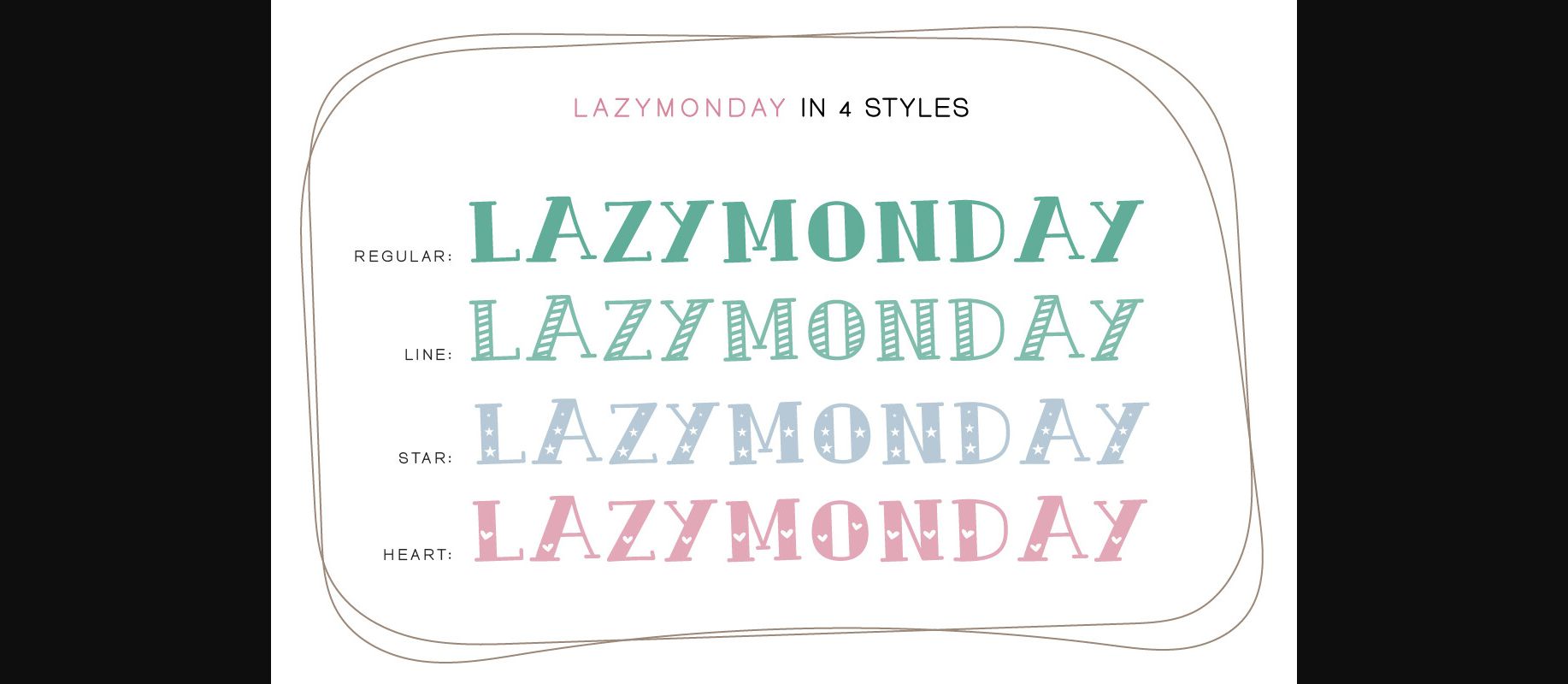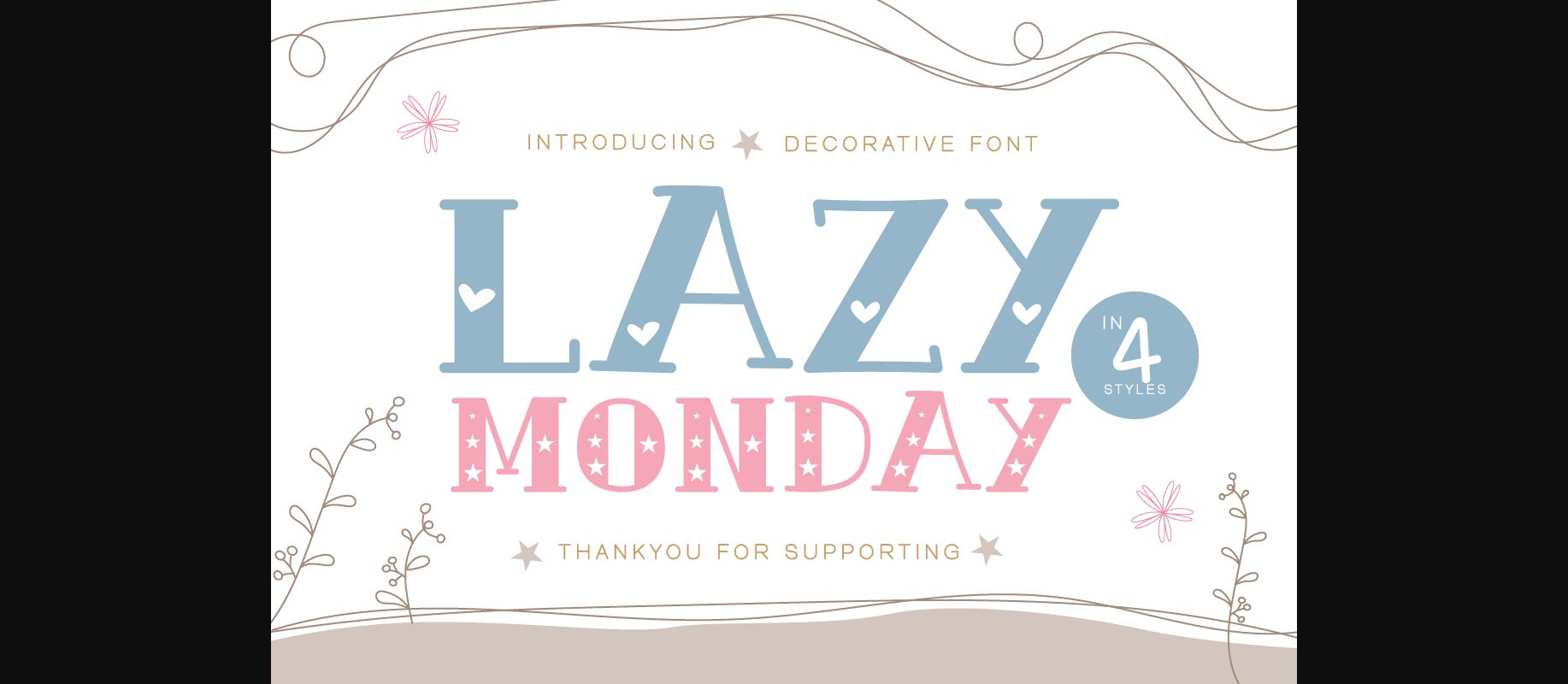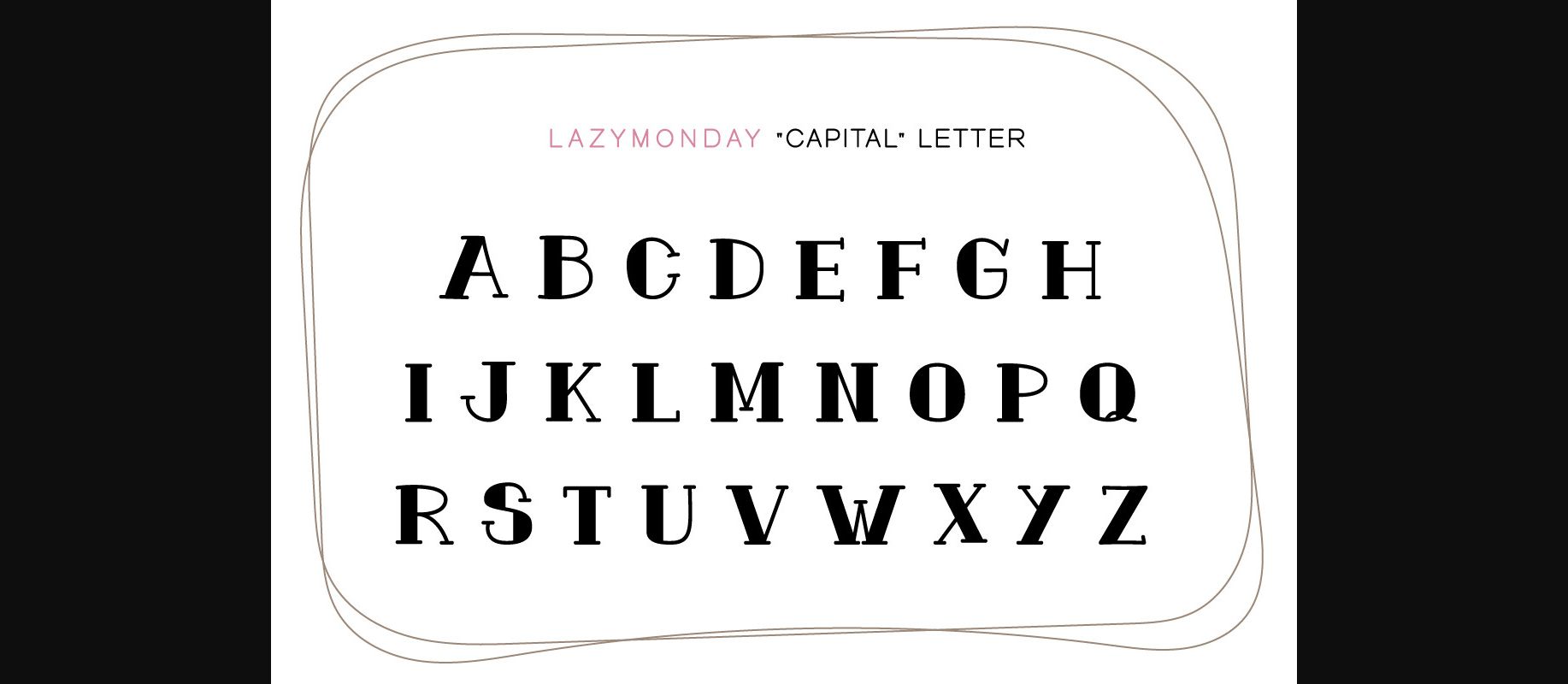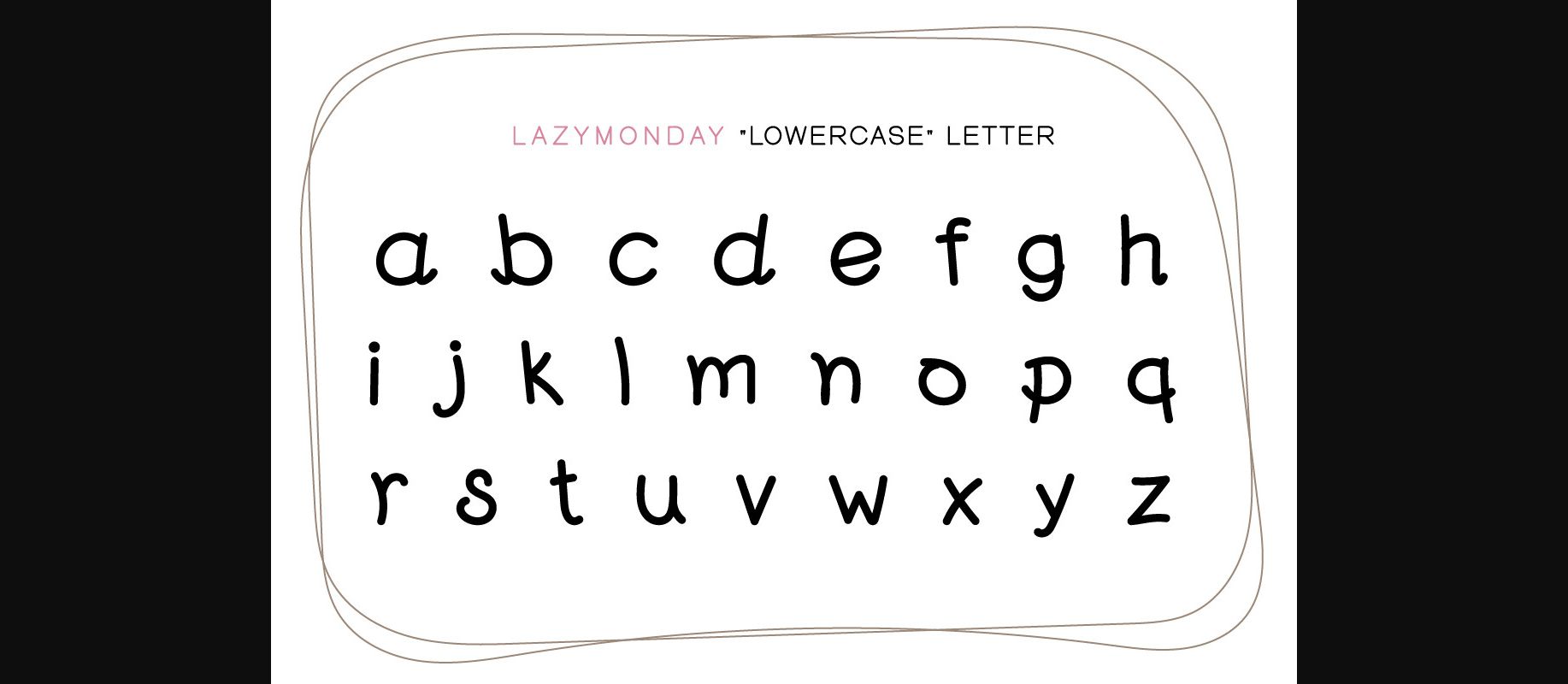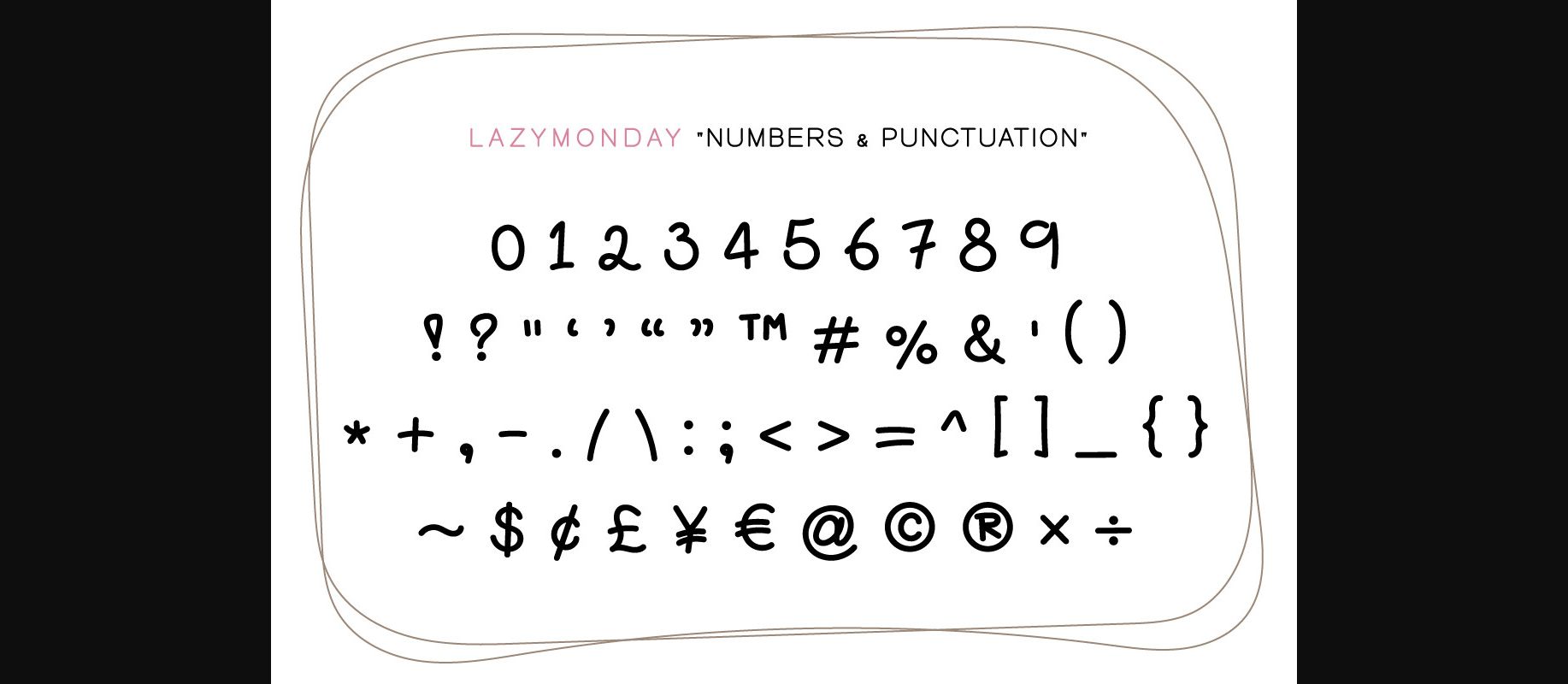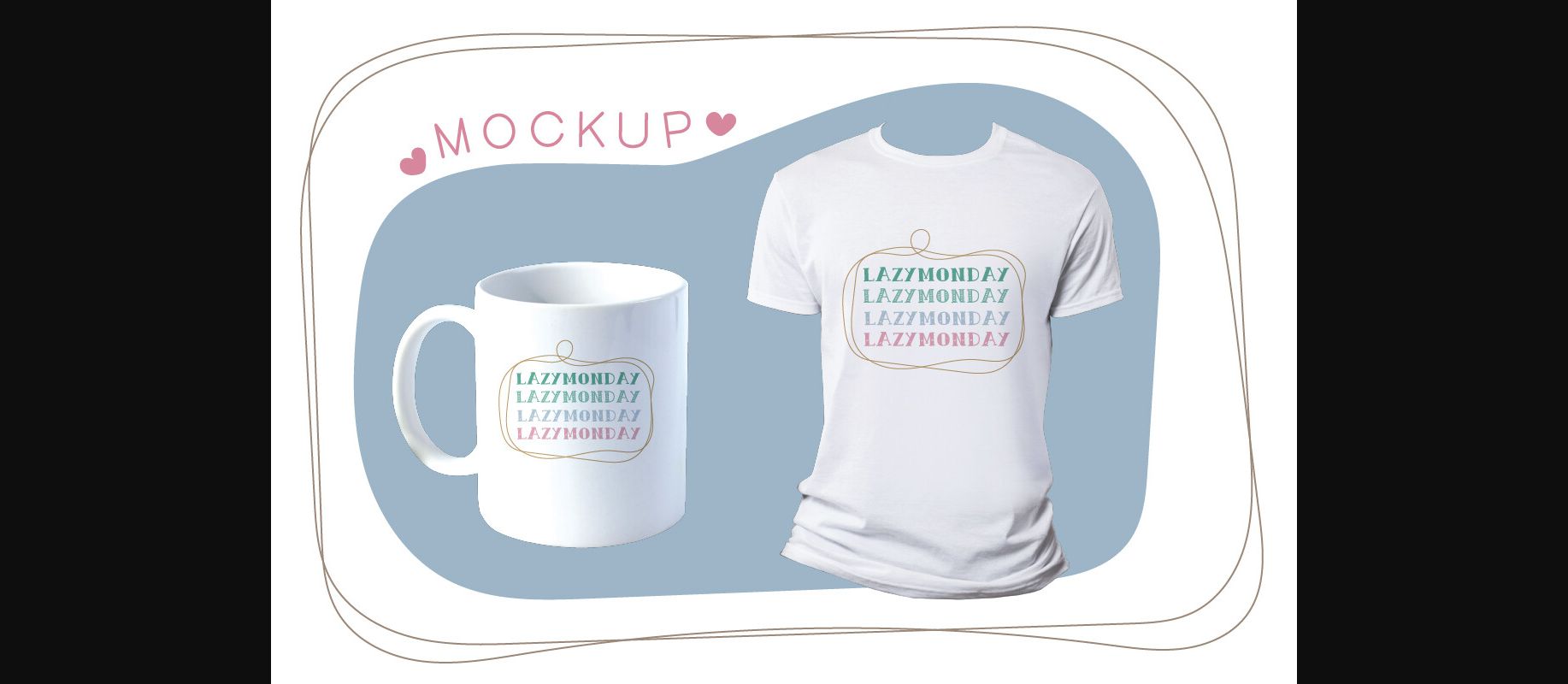
Lazy Monday Font
About Lazy Monday Font
LAZY MONDAY is cool, delightful, and cute decorative fonts in 4 styles.
( regular, line, star, and heart) UPCASE combined with different elements gets new fonts that are cute and fun. This font will be a wonderful asset to your font library, as it has the potential to enhance any creation. Perfect for creating a wide variety of new designs to match products such as banners, content, mugs, cards, shirts, stationery, social media posts, and more!